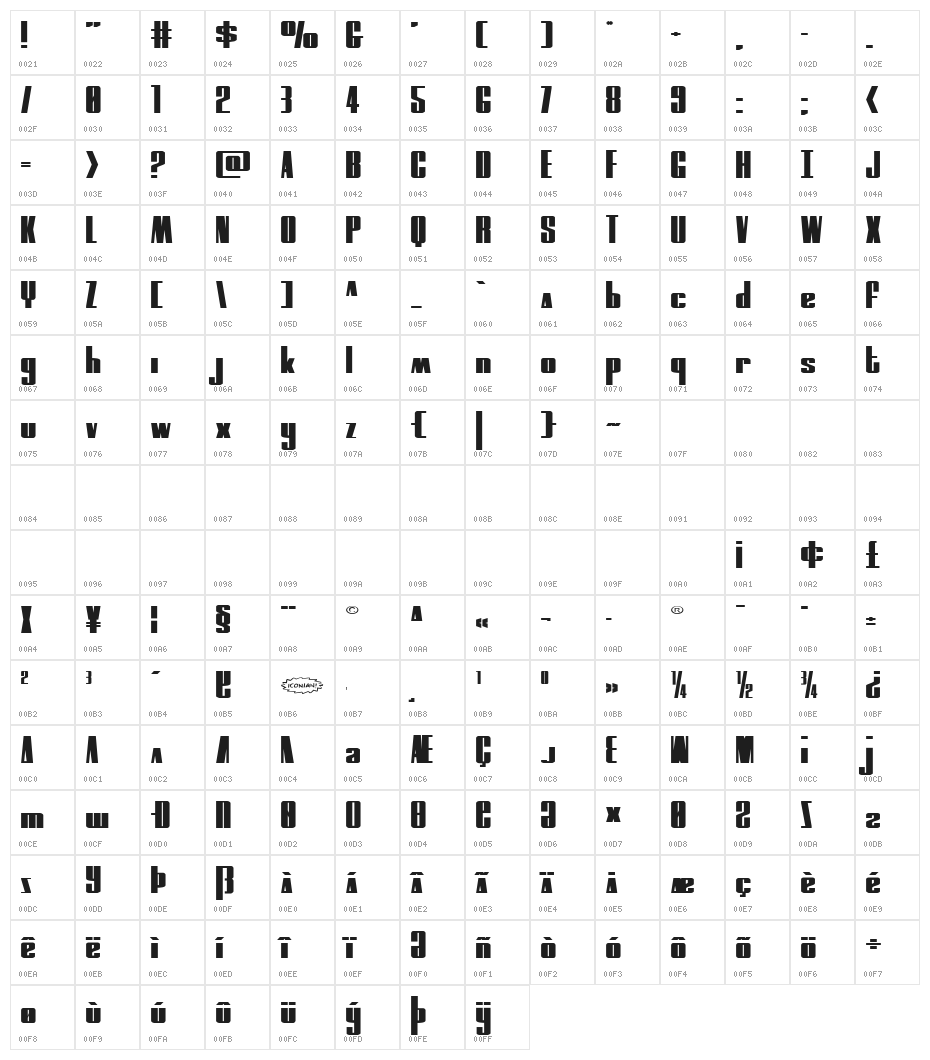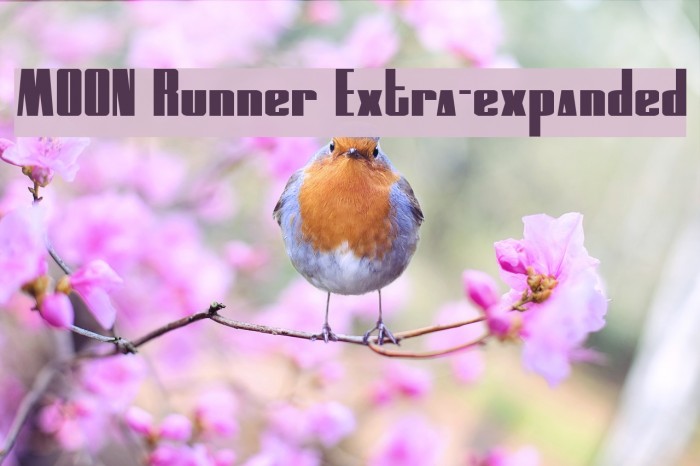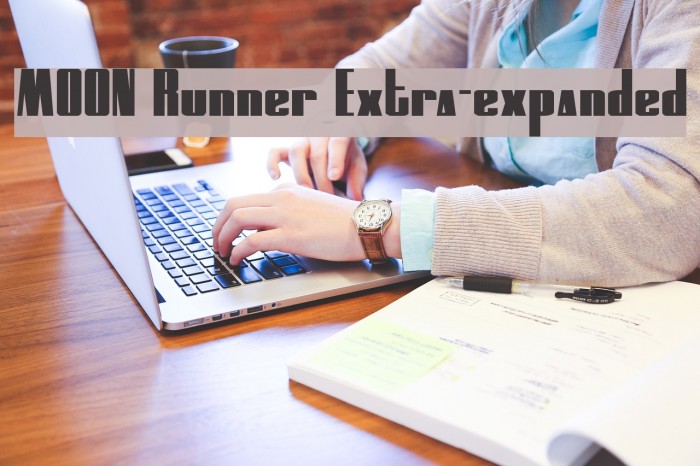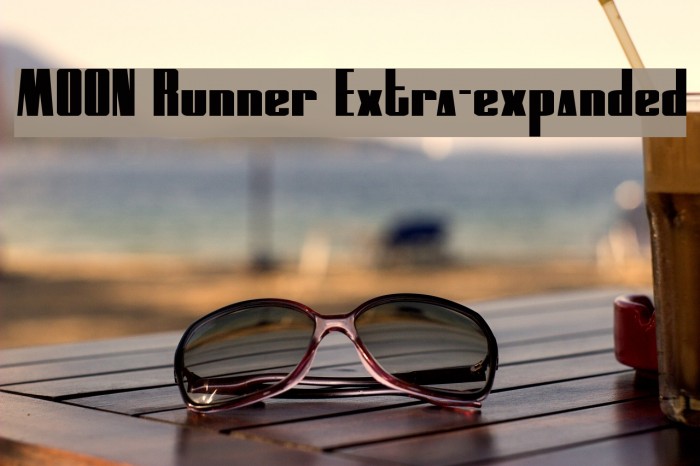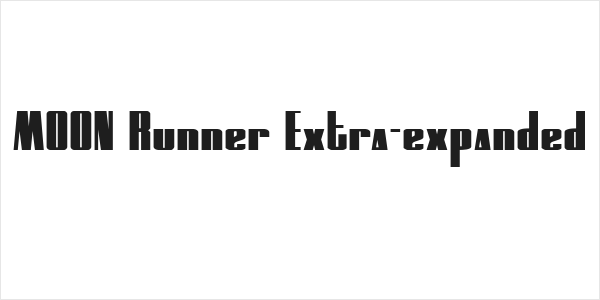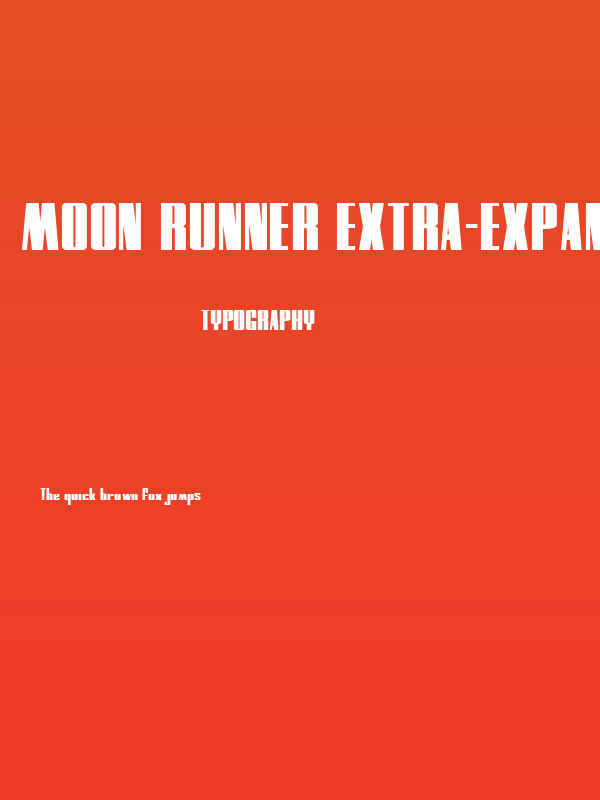
MOON Runner Extra-expanded Font
MOON Runner Extra-expanded Description
This font features a bold and striking design with an extra-expanded width, making it highly impactful and attention-grabbing. The uppercase and lowercase letters are characterized by their thick, block-like appearance, which conveys strength and stability. The numbers and special characters maintain this robust style, ensuring consistency across all glyphs. The font's geometric shapes and clean lines give it a modern and assertive look, suitable for making a strong visual statement.